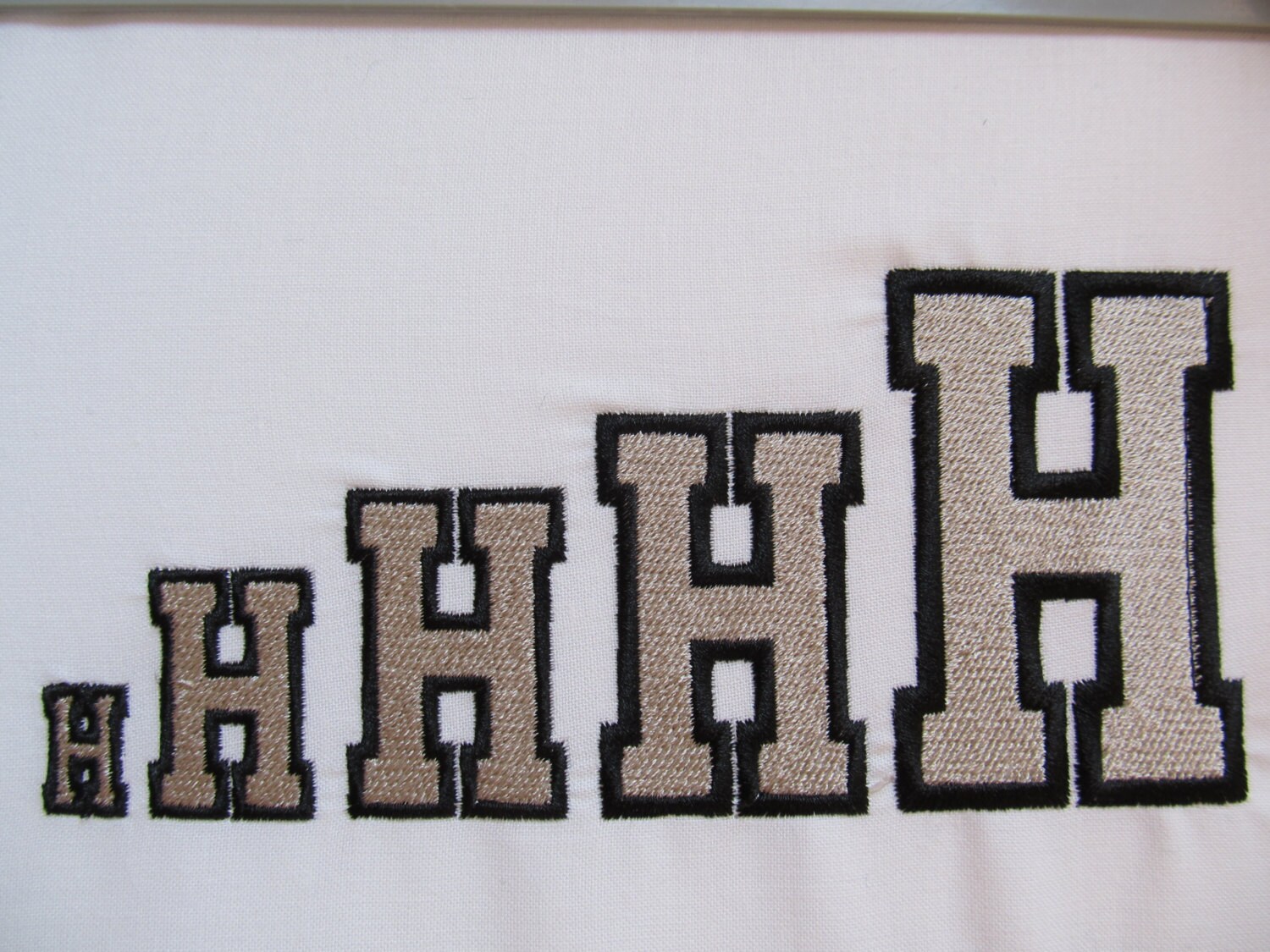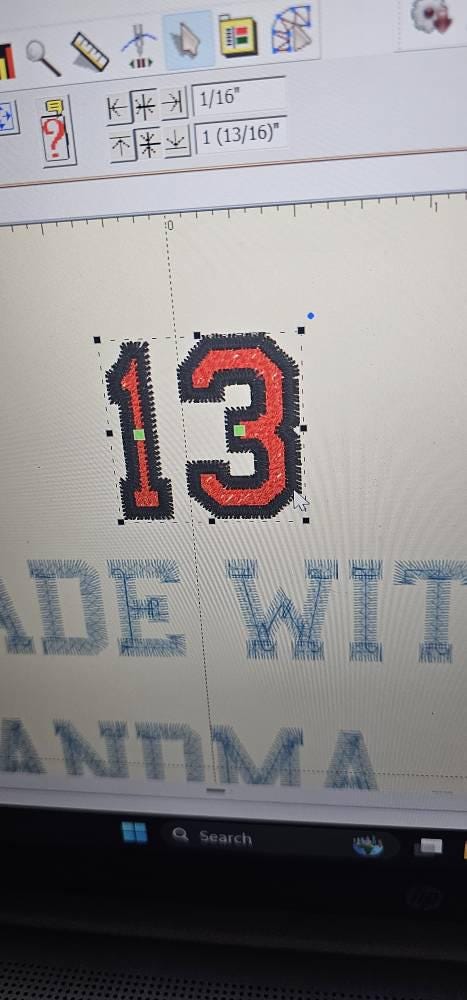
High school varsity collegiate block mini FONT fill stitch machine embroidery designs sizes 0.5 up to 4 inch sport alphabet monogram
Entire alphabet uppercase A-Z, and numbers 0-9.
The font was the size and type I needed. The number 1 looked a little odd next to other numbers, it was very skinny compared to others. I did try to message seller, no response. I ended up having to use a different font for the numbers I needed.